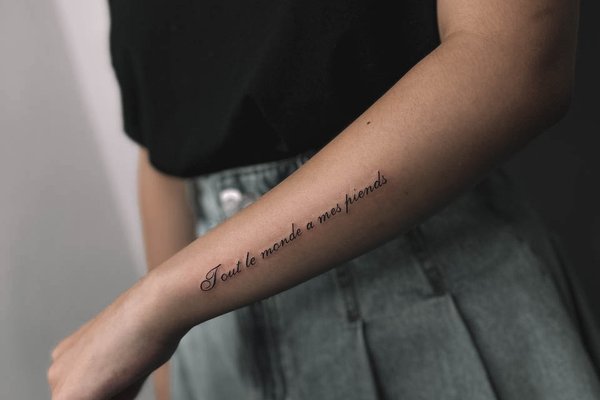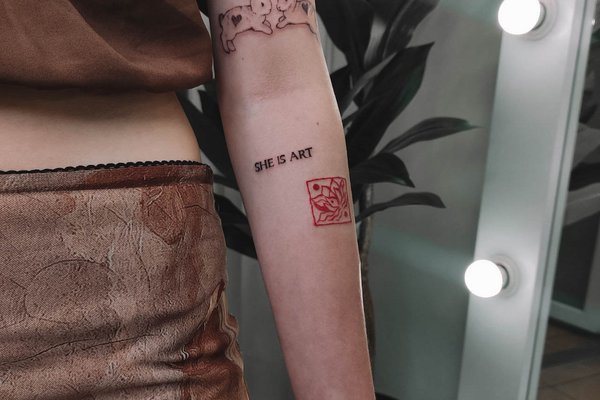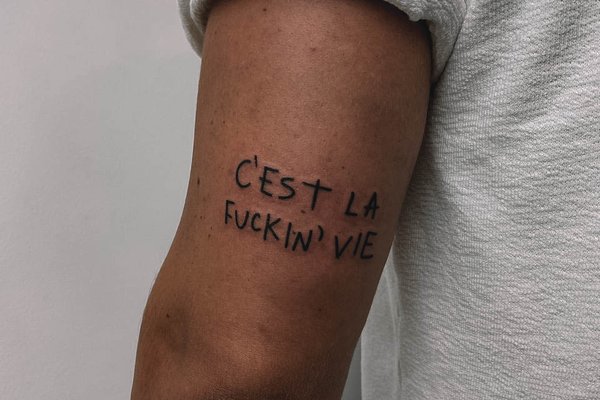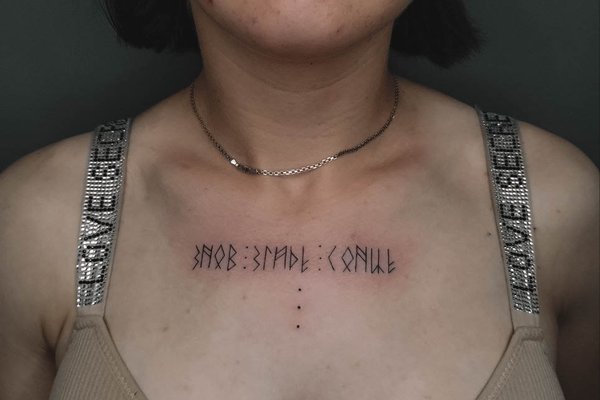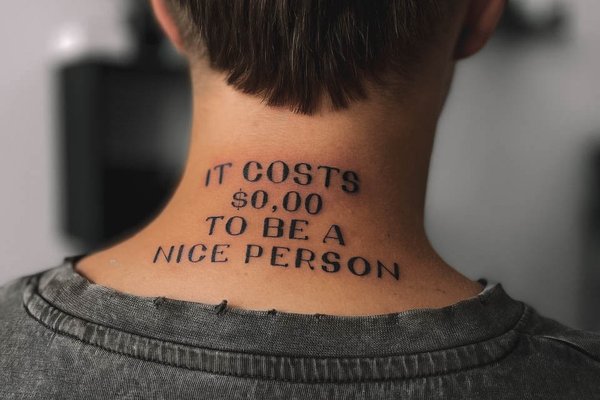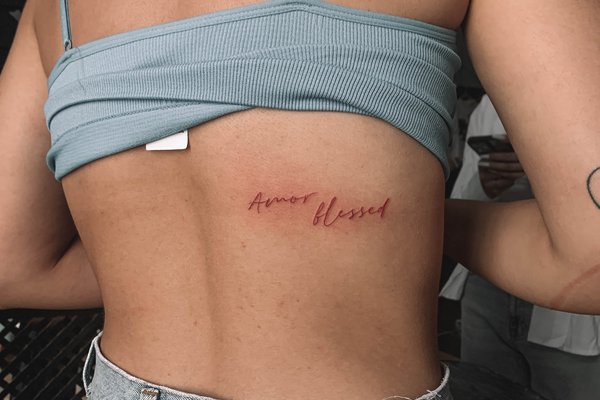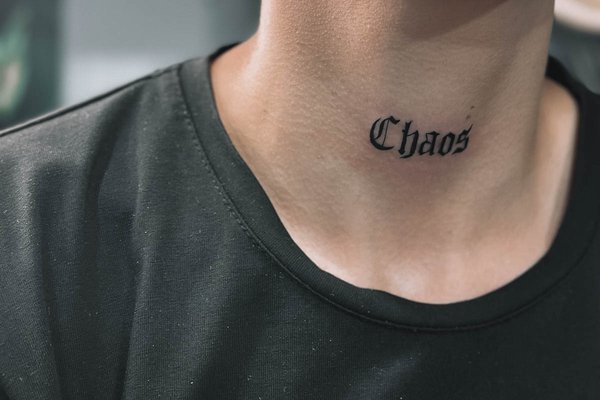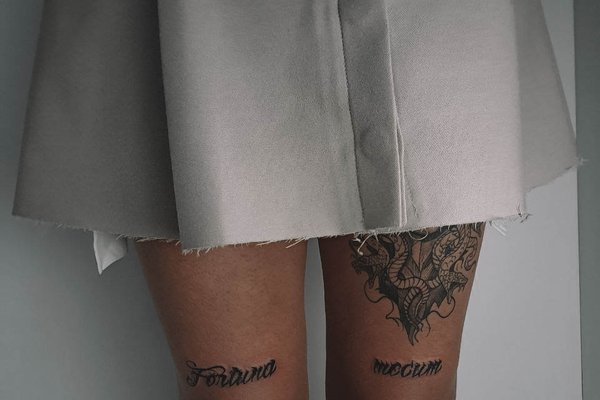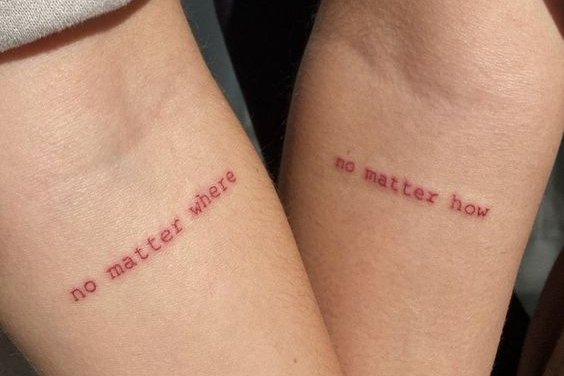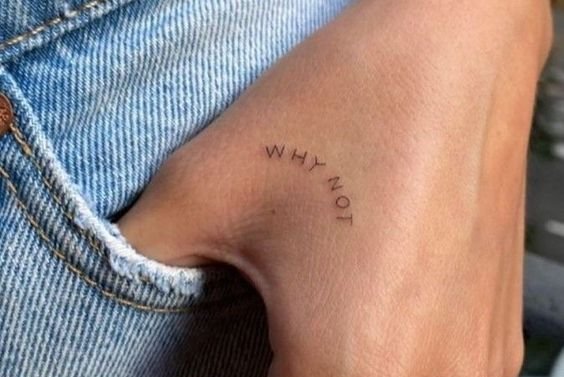
Tattoo inscription remains one of the most popular services in the tattoo industry.
Selecting text is not an easy process, but it will be more difficult to select a font. Each artist has own unique style for each font, but the common features remain the same.
Font Style
What should you know before choosing font style for tattoo?
Font Size
To choose the font size, first of all, you need to decide on the place where the tattoo will be inked.
Try to write an inscription on paper in the right size and place it in the place of your interest. So you can see if this size is big for you or small, or if you hit the bull's-eye. Don't forget about capital letters!
Color of the Inscription
If you have done all of the above, then you can proceed to the choice of the color for the inscription.
Black & White lettering would be ideal. This is a classic! If you want a color inscription, then contact us or use Internet resources to choose the colors that match with each other. When combining several colors, you can do:
• Contrasting outline;
• Colored shadow;
• Color inside the letters can be filled with a gradient.
Tattoo Fonts from Our Artists
This is the best you can do to get the desired result. The fonts on the site are chosen as the best and most successful for almost every situation. The tattoo style can vary from minimalism to gothic or even graphics. It’s you who choose style for your tattoo, but the artist advice will always come in hand. Let’s work together on designing the right inscriptions with all its features to create the best for you.
Language of Inscription
The language is the one of the most important factors which will influence your future tattoo, because not every font looks great in this or that language.
So, you choose the language, then the font, then the size and the place you want your inscription.
Popular Places for Inscription Tattoo
The place for a tattoo is the client’s choice, but so historically some places for inking are the most popular.
These are forearms, sides of the hands, feet, often there are inscriptions on the wrists, neck and back. Many clients want inscription across their chest.
Font Preferences
Sophistication, fine lines, thin and light fonts are preferable among girls.
Men prefer larger, bolder and rigid inscriptions with outline, occasionally colored. However, this is all too standardized and may not be suitable for our clients. Our clients have good taste and love the uniqueness in the best traditions.